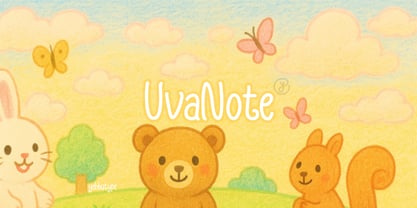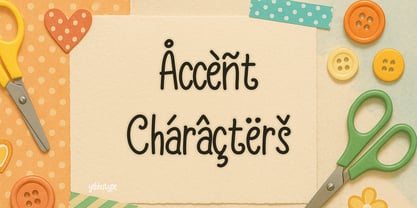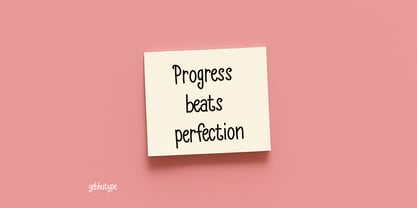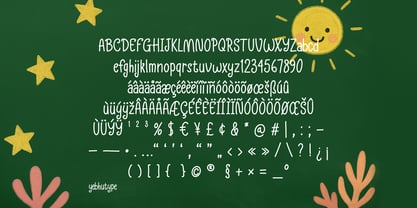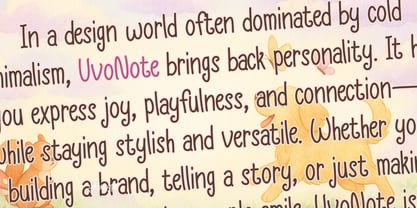
Uva Note
by Yebhu
The Uva Note Font Family was designed by Untung Prasetyo and published by Yebhu. Uva Note contains 1 styles. More about this family
UvoNote Font: The Handwritten Hug for Your Creative Ideas
Introducing UvoNote – a charming handwritten typeface that feels like a cheerful note from a friend. Brimming with personality and softness, UvoNote captures the joyful spontaneity of human touch. Designed to bring warmth, friendliness, and creativity into every letter, this font is your go-to for projects that crave authenticity, playfulness, and a bit of youthful spirit.
Whether you're designing for children, casual brands, or simply looking to add a light-hearted human flair to your work, UvoNote delivers a perfect balance of simplicity and character.
✨ The Essence of UvoNote Font
UvoNote is more than just a font—it’s a handwritten expression of joy. Each curve, loop, and stroke is shaped to feel organic and lively, mimicking the imperfections that make real handwriting so relatable. The tall x-height, rounded terminals, and consistent stroke weight give UvoNote a clear, friendly presence on the page—ideal for projects that aim to connect with people on a personal level.
It’s not rigid. It’s not sterile. It’s real, warm, and welcoming.
🔑 Key Features
✍️ Handwritten Whimsy
UvoNote’s playful form mimics the feel of writing in a favorite notebook—loose, flowing, and full of life. Its rounded letters and casual rhythm create a delightful visual texture.
🎈 Cheerful Personality
Every character in UvoNote is designed to lift the mood. It radiates joy and friendliness, making your text look approachable and full of good vibes.
🎨 Creative Versatility
From storybooks and school materials to logos, packaging, and social media posts, UvoNote adapts effortlessly while keeping its distinct, lovable style.
💬 Clear & Readable
Despite its fun look, UvoNote maintains excellent legibility. Its consistent letterforms and spacious kerning ensure it reads well in both headers and short paragraphs.
💛 Authentically Imperfect
Subtle irregularities in the strokes give UvoNote a handcrafted touch—making your designs feel warm, real, and human.
🧠 Mood & Personality
UvoNote feels like a spontaneous doodle in the margin of a happy memory. It evokes the feeling of childhood creativity, shared laughter, and honest moments. It’s the typeface equivalent of a smiley face drawn with a pen—and it invites your audience to feel right at home.
🎯 Ideal Use Cases
📚 Children’s Books & Educational Projects
Create friendly, fun-filled layouts for early readers, flashcards, activity books, and classroom posters.
🛍️ Friendly Branding & Packaging
Perfect for brands that want to come across as approachable and lighthearted—especially in food, kids, or lifestyle industries.
💌 Invitations & Greeting Cards
Add charm to birthday cards, thank-you notes, baby showers, or personal stationery with UvoNote’s cheerful curves.
📱 Social Media & Content Creation
Stand out in your feeds with a font that adds a relatable, human touch to Instagram posts, YouTube thumbnails, or TikTok overlays.
📔 DIY Projects & Journals
From planners and bullet journals to scrapbooking, UvoNote helps you turn everyday designs into heartfelt expressions.
💡 Why Choose UvoNote Font?
In a design world often dominated by cold minimalism, UvoNote brings back personality. It helps you express joy, playfulness, and connection—all while staying stylish and versatile. Whether you're building a brand, telling a story, or just making something that makes people smile, UvoNote is the font that speaks with heart.
🎉 Let Your Words Come Alive with UvoNote
Let your text dance, doodle, and shine with UvoNote. It’s more than just a font—it’s a design companion that brings authenticity and delight to everything it touches.